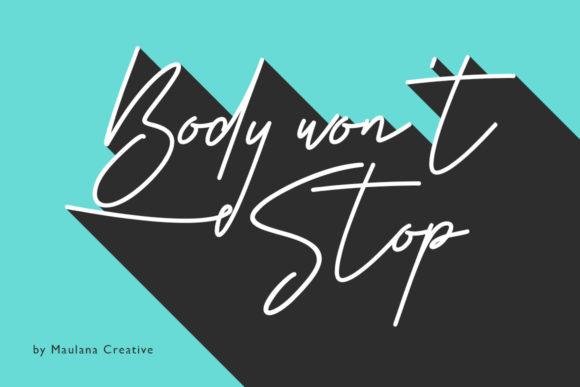
This irresistible collection features a range of captivating fonts, carefully curated to elevate your designs and leave an unforgettable impression. With unparalleled elegance, these fonts are designed to ignite your creativity and empower you to craft breathtaking visuals that will captivate your audience.
Prepare to be enthralled by our exquisite 'Body Won't Stop' font, a masterpiece that seamlessly blends the allure of classic calligraphy with a fresh, contemporary flair. Its graceful curves, delicate ligatures, and sophisticated charm will add a touch of timeless beauty to all your projects.
Crafted with meticulous attention to detail, the 'Body Won't Stop' font exudes an irresistible charm that will leave you yearning for more. Its enchanting flow and harmonious proportions create a visual symphony that will elevate your designs to new heights.
Immerse yourself in the world of exquisite typography with this captivating font collection. Unleash your creativity and let these elegant scripts guide your designs, creating masterpieces that will leave an enduring impact on your audience.